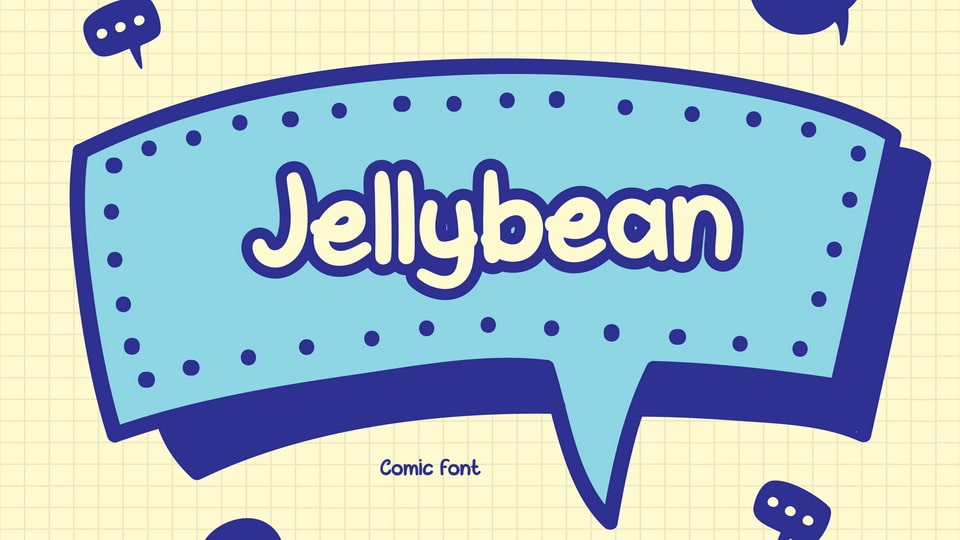
Download Jellybean font, a handwritten comic typeface. Suit perfectly for comics, social media quotes, stationary, school supplies font, poster, birthday invitation, Youtube covers, Youtube thumbnails, social media page covers and so on…